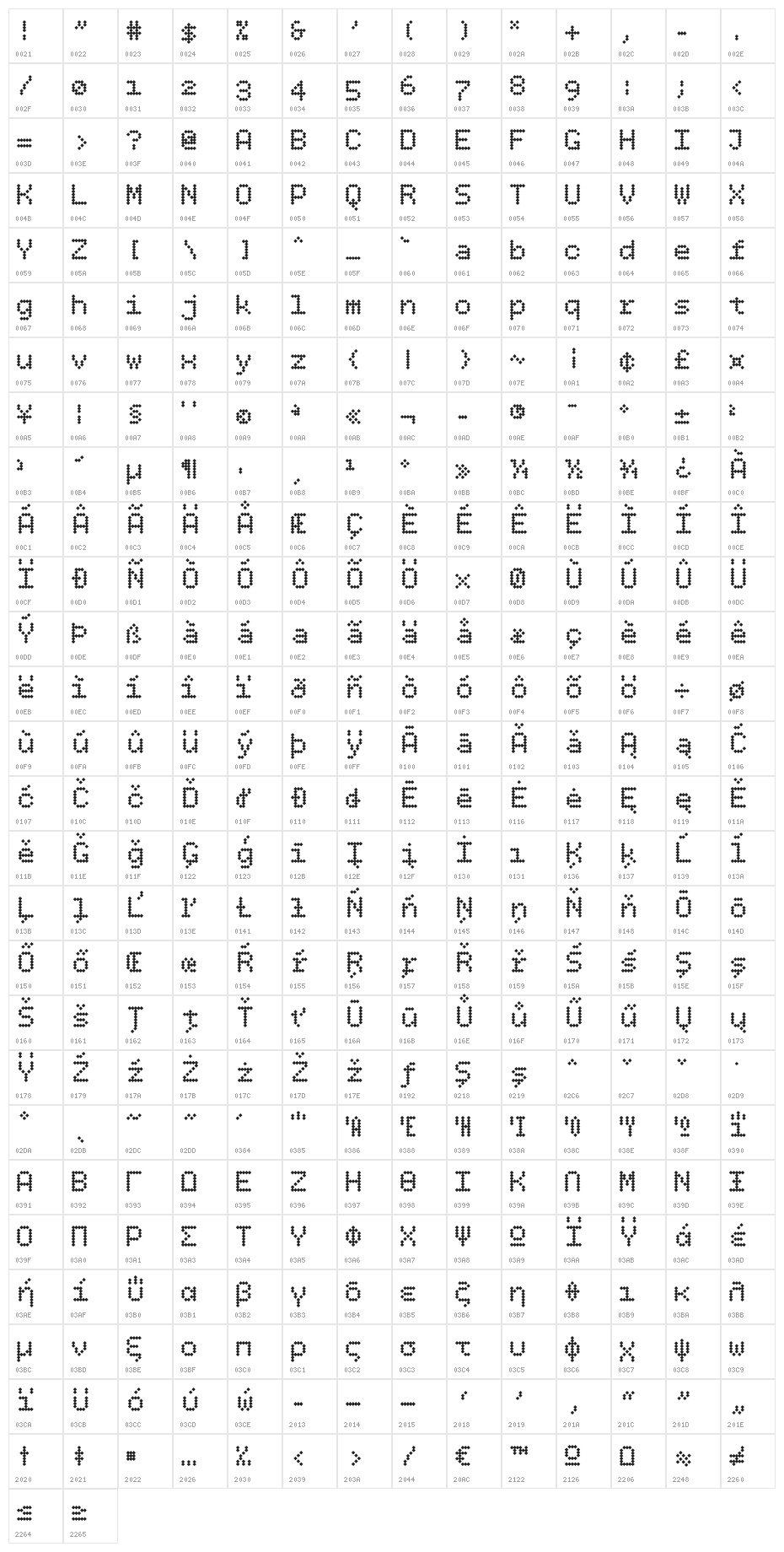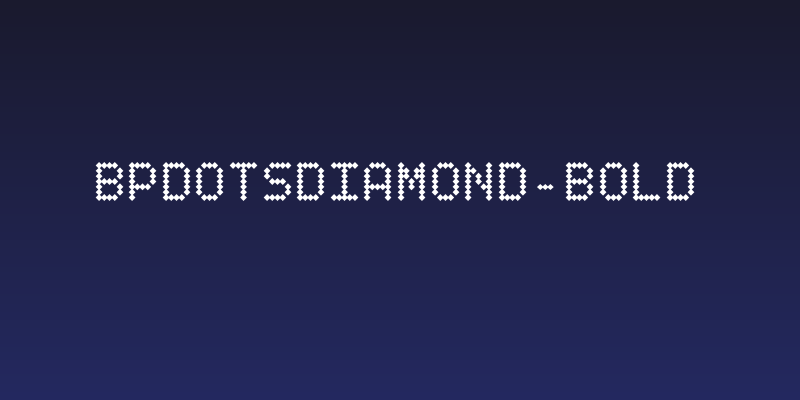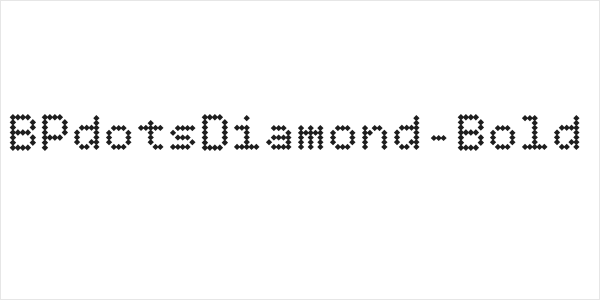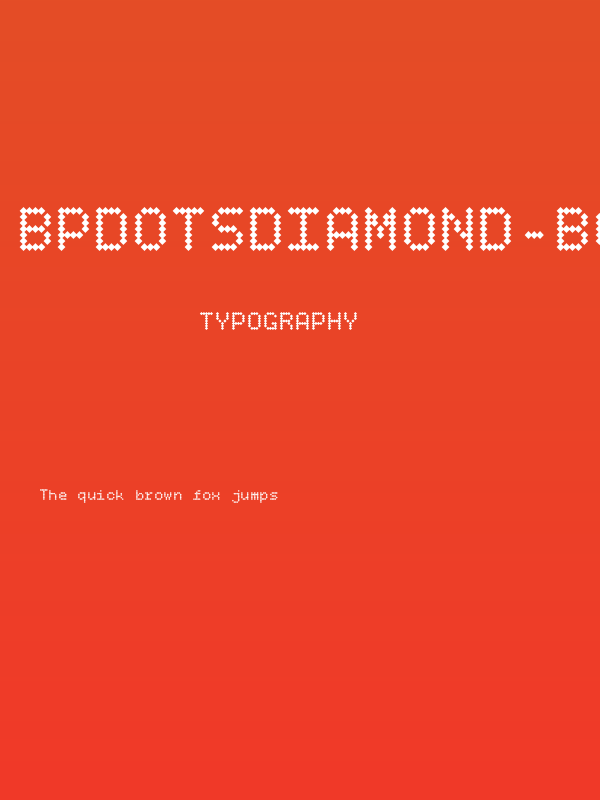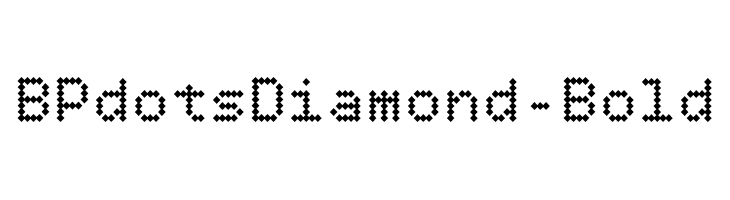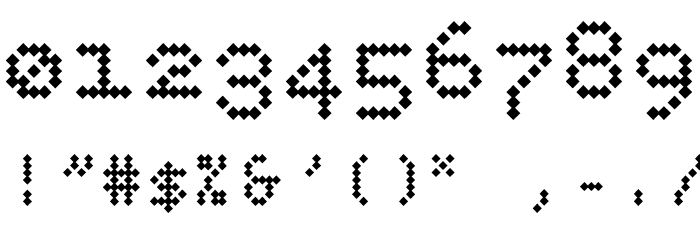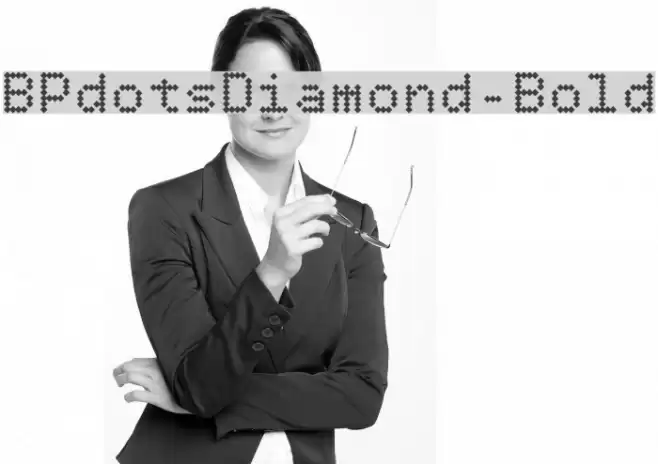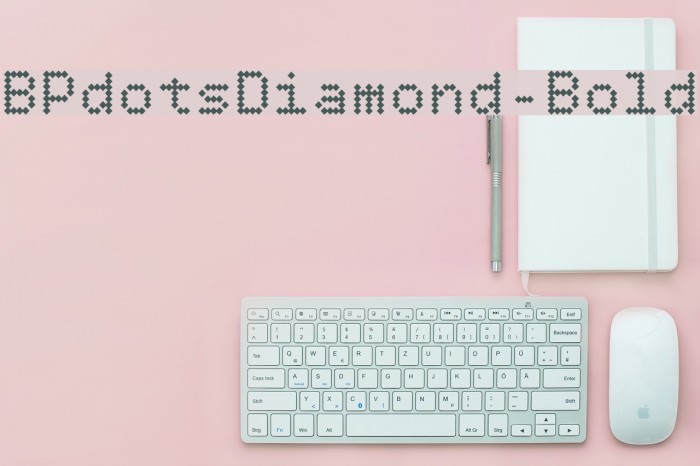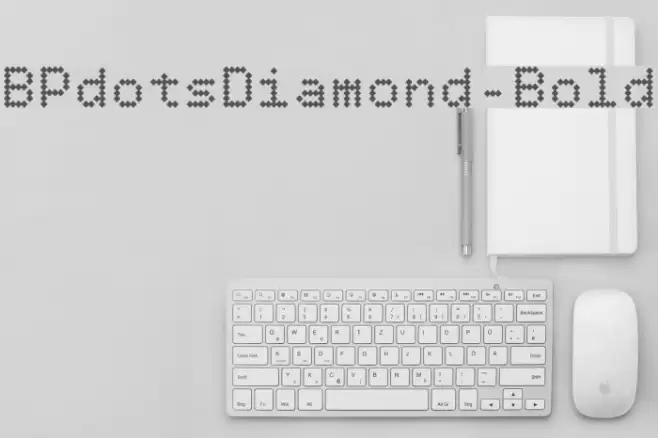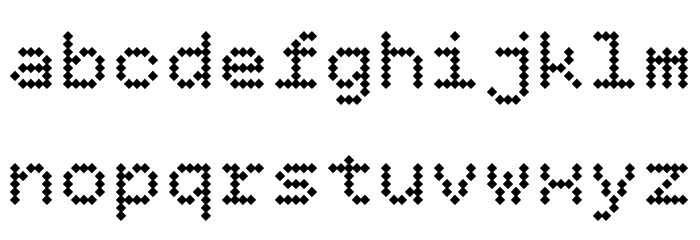
BPdotsDiamond-Bold Font
BPdotsDiamond-Bold Description
This font features a unique and striking design composed entirely of diamond-shaped dots. Each character is constructed with precision, creating a pixelated effect that is both modern and retro. The uppercase and lowercase letters maintain a consistent style, with clear differentiation between each character. Numbers and special characters are equally well-defined, ensuring readability while maintaining the font's distinctive aesthetic. The bold weight of the font enhances its visual impact, making it ideal for attention-grabbing designs. Its geometric structure and uniformity lend a sense of order and clarity, while the dotted pattern adds a playful and creative touch.
| Use Case | Logos, Headlines, Posters |
| Proposed Projects | Ideal for digital art, retro-themed designs, video game graphics, and creative posters. |